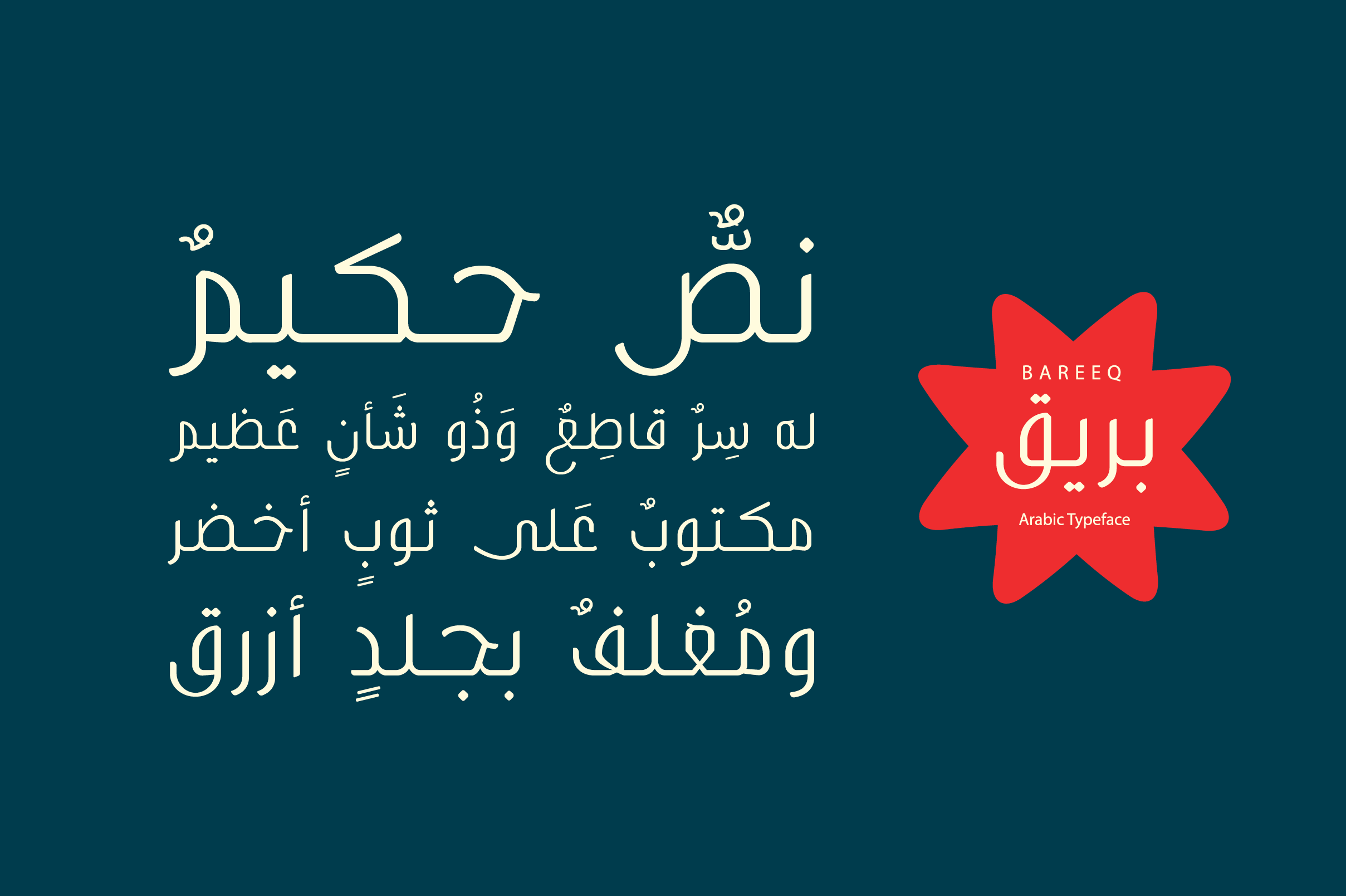
Bareeq - Arabic Typeface
Bareeq (the Arabic for 'Glitter') is an Arabic typeface that fuses the traditional Arabic script with modern design aesthetics. The font suits various range of design applications including web and print. Bareeq typeface consists of three weights (Light, Regular, and Bold) and it supports Windows, Mac OS and mobile applications.